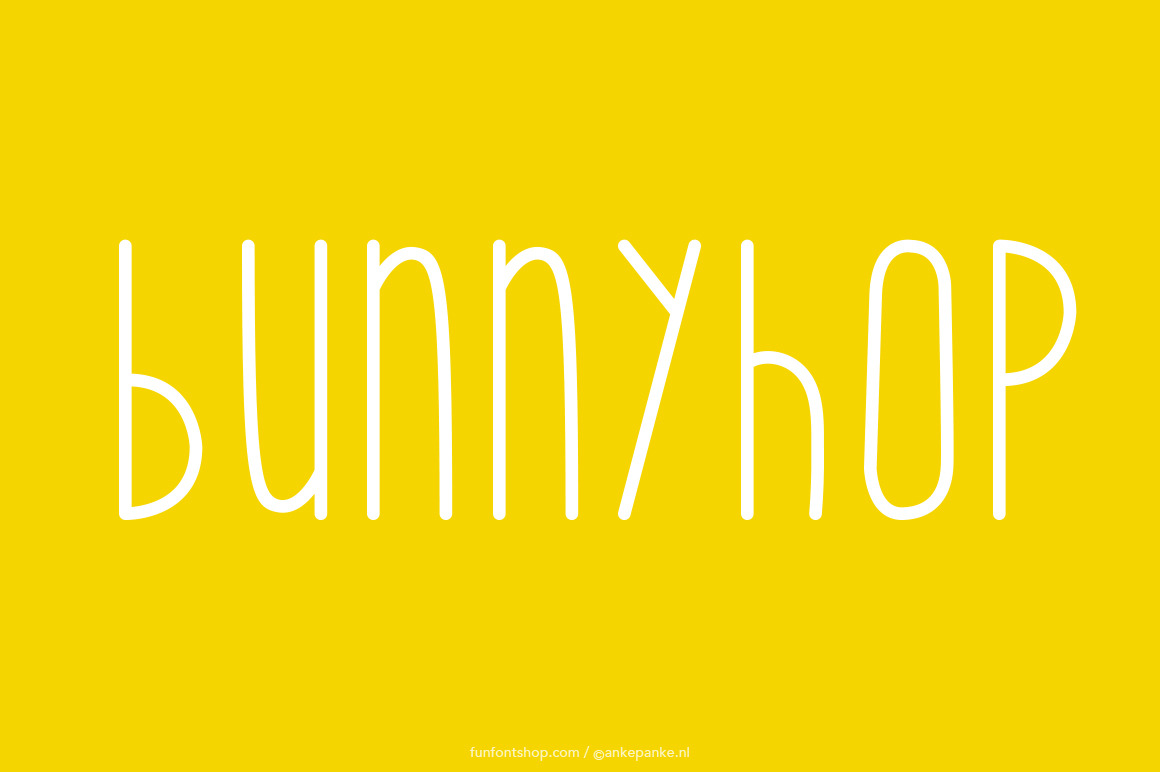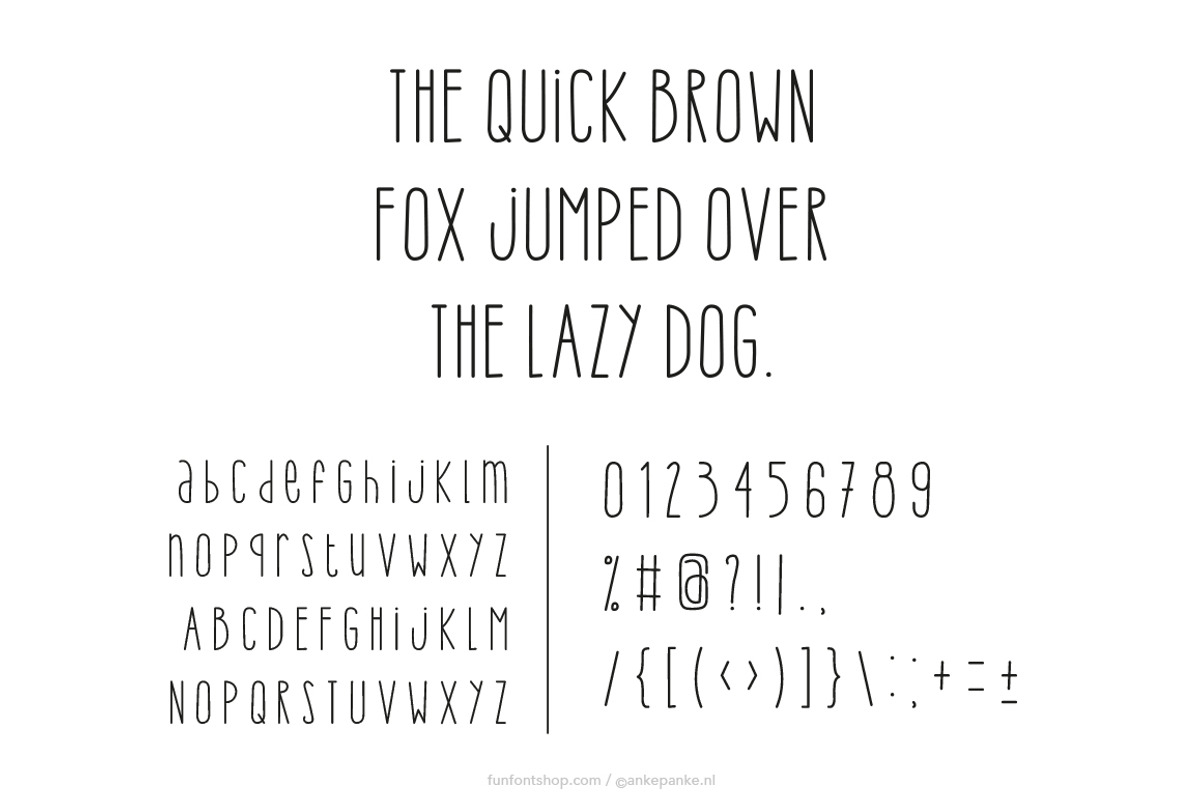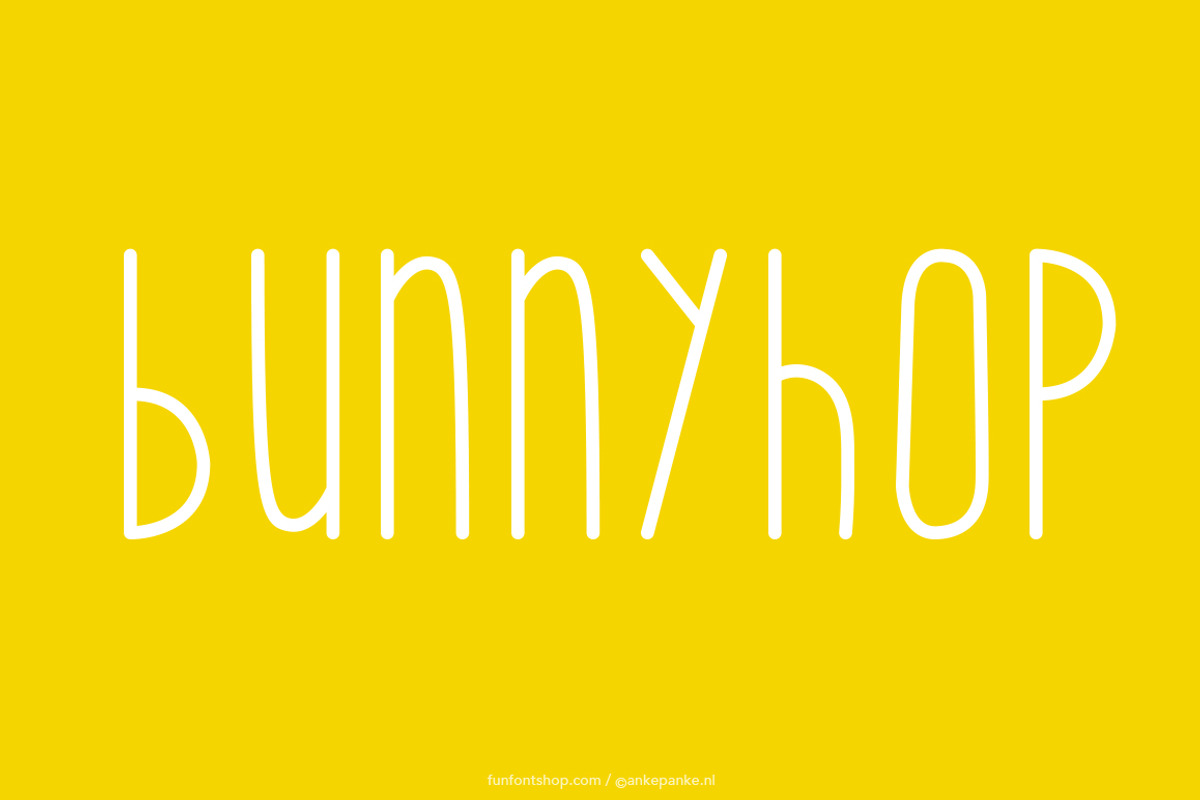
Bunny Hop font
A thin, playful font that looks a bit like handwriting.
- Letters Uppercase, lowercase and numbers
- Punctuation !?#%&*±+=-_,.:;'"/|¢£€$©®@({[]})^´`~¨